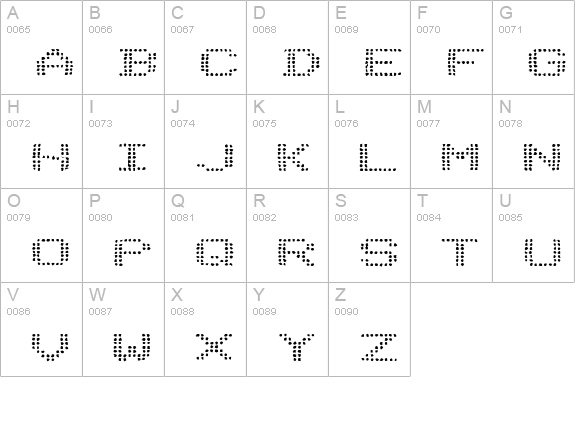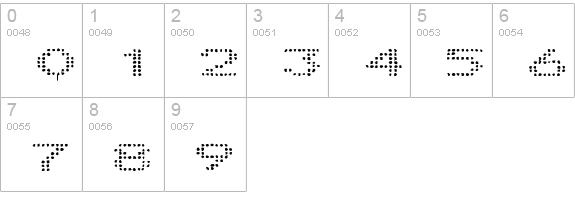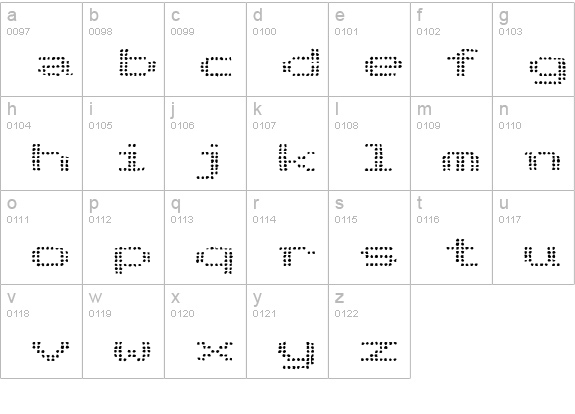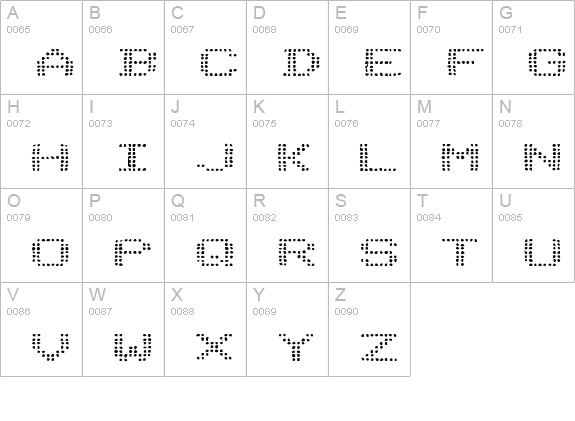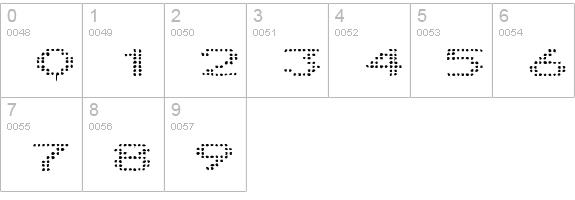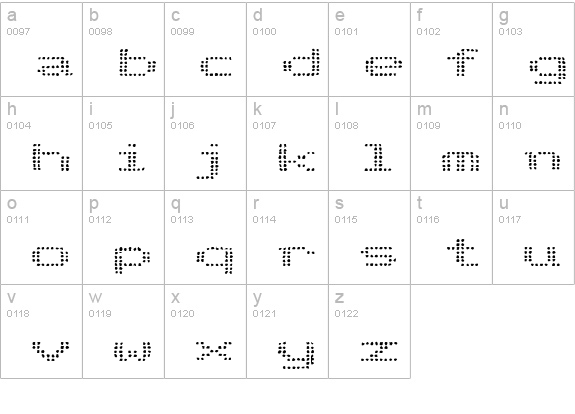
Telidon Ink Ex Font Details
Telidon Ink Ex font is a unique and eye-catching typeface that exudes a sense of creativity and innovation. With its bold and dynamic letterforms, this font is perfect for making a statement in your design projects. The ink-inspired texture adds a touch of handcrafted charm, giving your text a distinctive and artistic flair. What's even better is that Telidon Ink Ex font is available for free download at FontsMarket.com. This means you can easily incorporate this stylish font into your designs without any cost. Whether you're designing posters, logos, or social media graphics, Telidon Ink Ex font will certainly make your text stand out and leave a lasting impression. Don't miss out on this fantastic opportunity to enhance your design projects with this visually striking font!